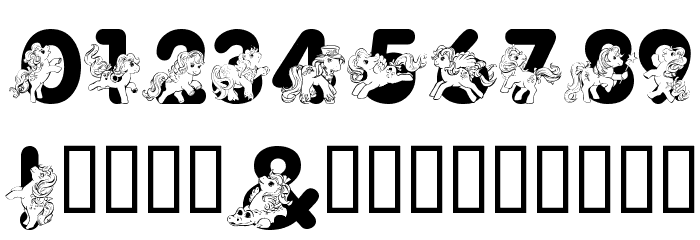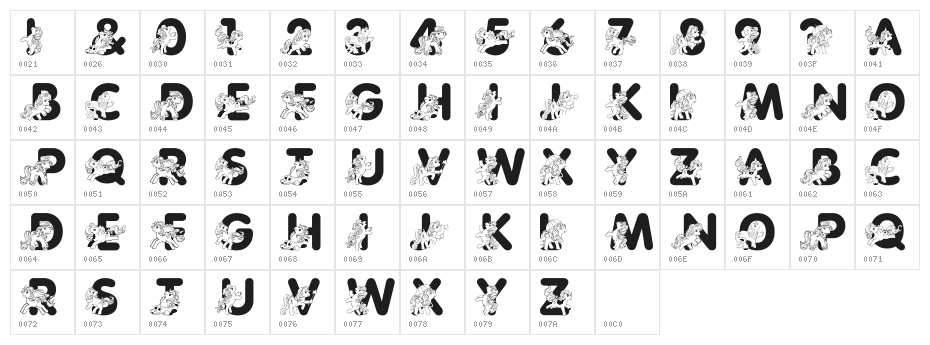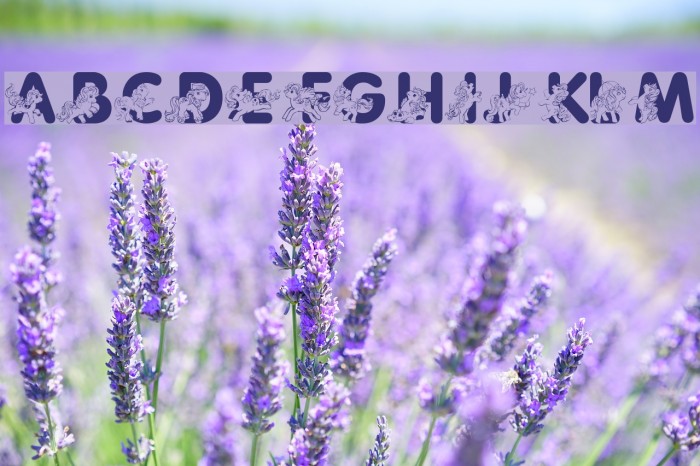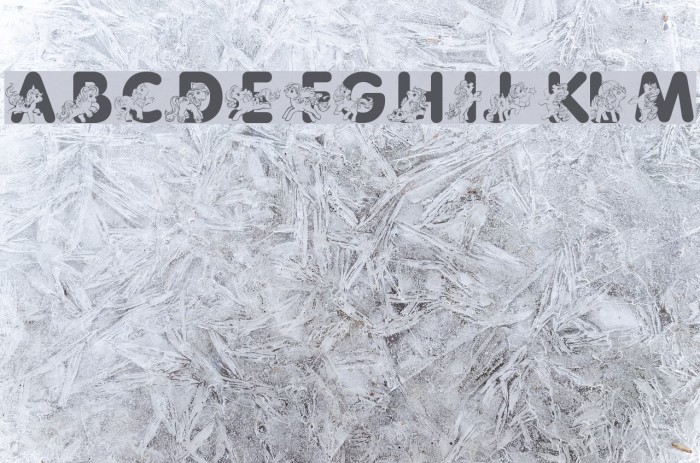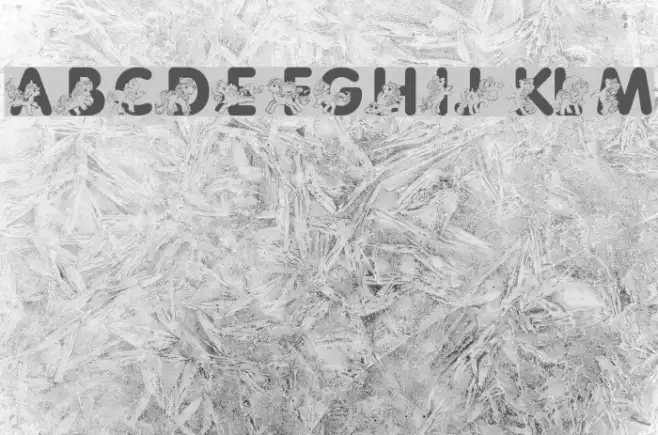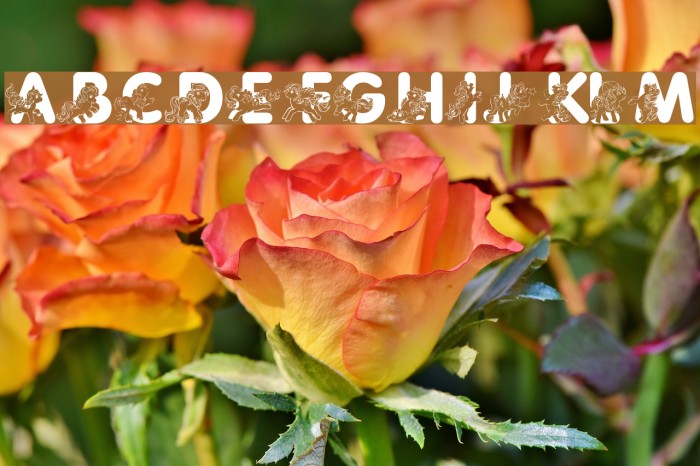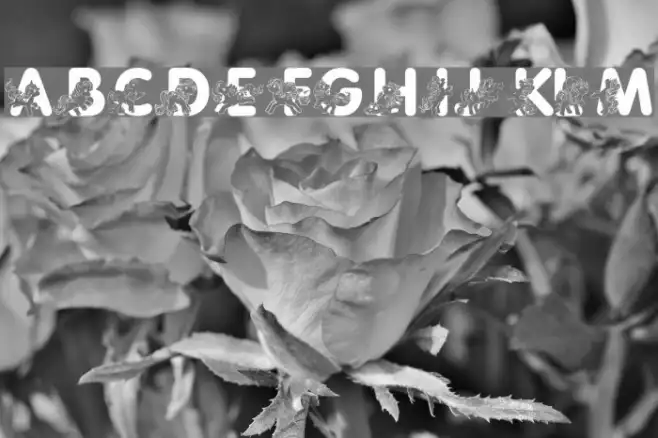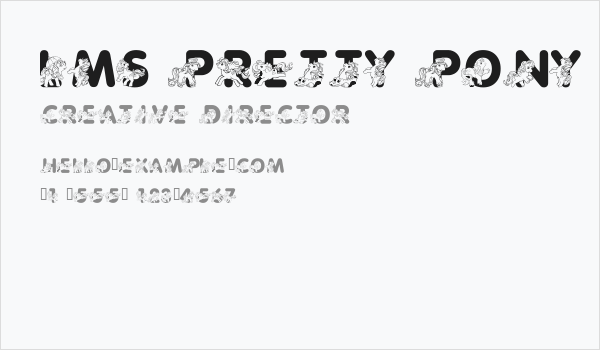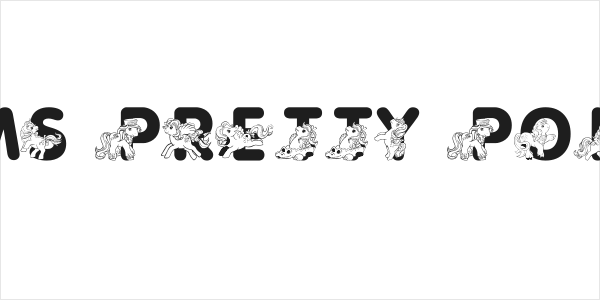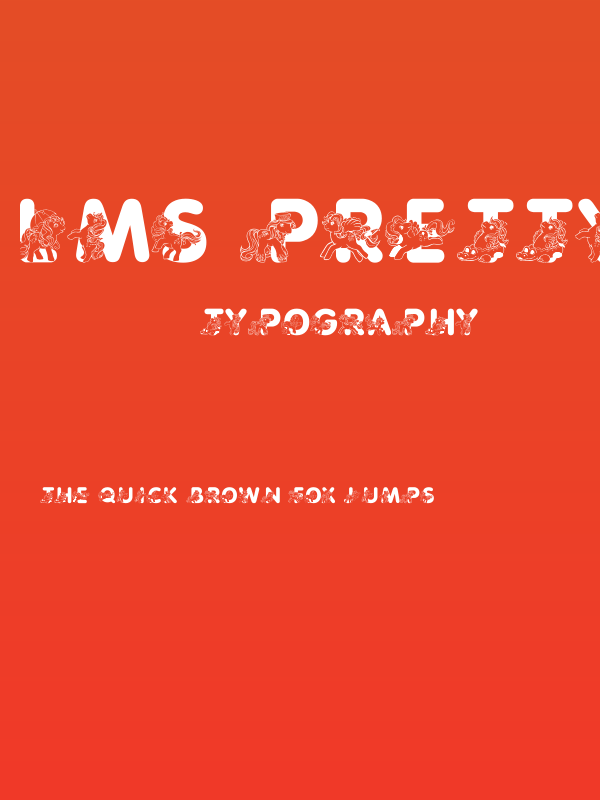
LMS Pretty Pony Font
LMS Pretty Pony Description
This whimsical and playful font features charming pony illustrations integrated into each character, creating a delightful and unique visual experience. The letters are bold and rounded, providing a strong contrast to the intricate pony designs that adorn them. The font maintains a consistent style throughout, with each letter and number showcasing a different pony pose, adding a sense of movement and fun. The special characters are also creatively designed, incorporating the pony theme seamlessly. This font is perfect for projects that aim to capture a sense of joy and imagination, appealing to both children and those young at heart.
| Overall Style | Whimsical |
| Proposed Projects | Ideal for children's books, playful branding, party invitations, and whimsical posters. |